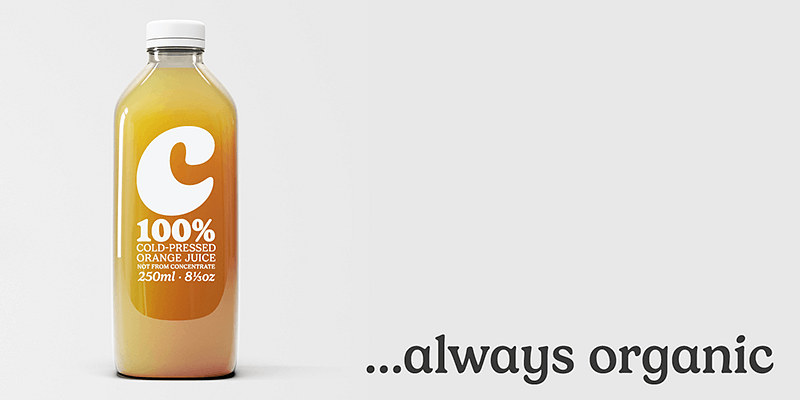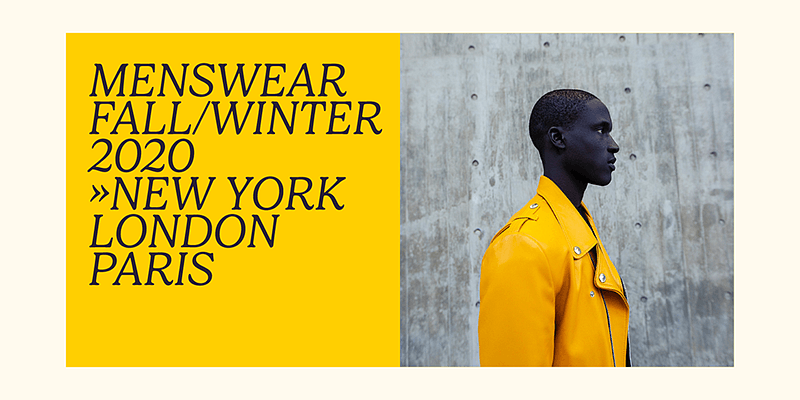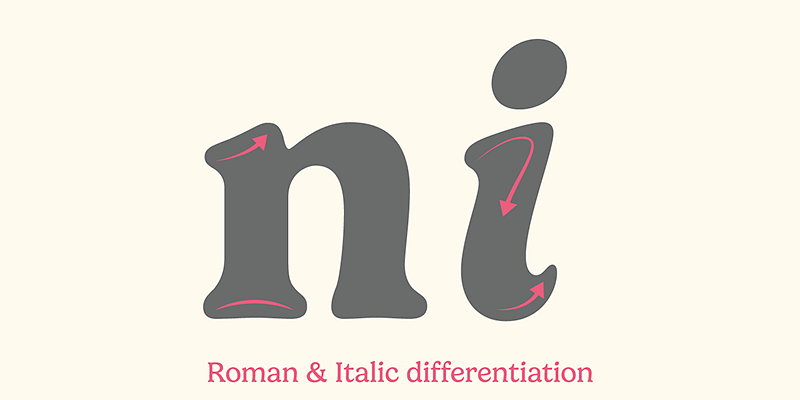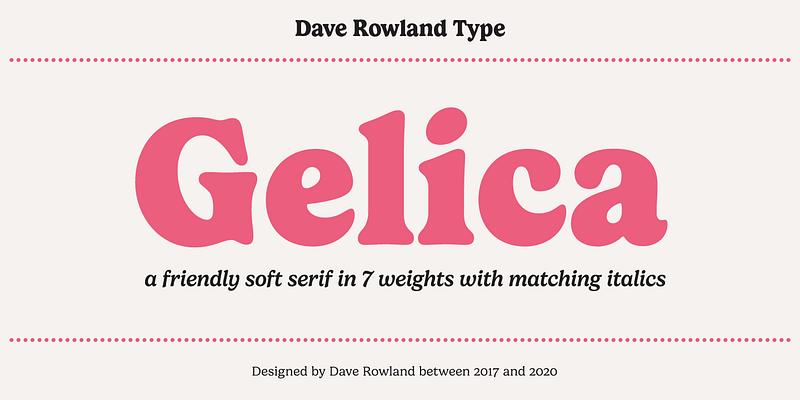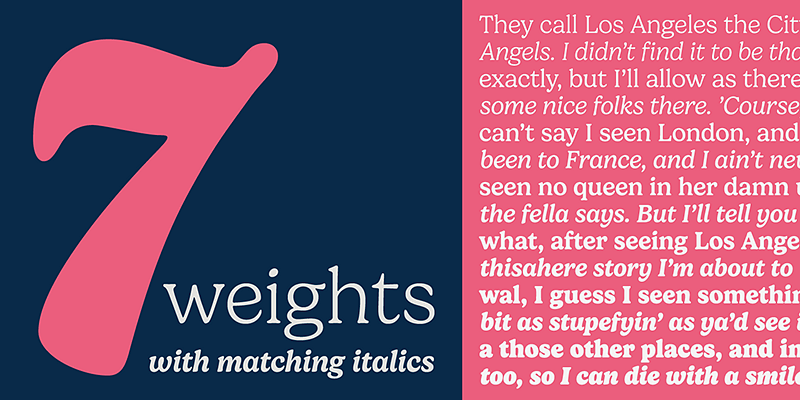
Gelica is a soft serif typeface that will remind most of Cooper. In truth, the family owes more to Goudy Heavyface and Ludlow Black, particularly in the concave serifs. Dave Rowland wanted the design to be friendly, not cutesy, and usability was always the prime concern. A helpful weight range with italics was a must, too. This is a display face, first and foremost. But, with a bit of tracking, it works well at smaller sizes for longer text, supporting a more exuberant titling font.